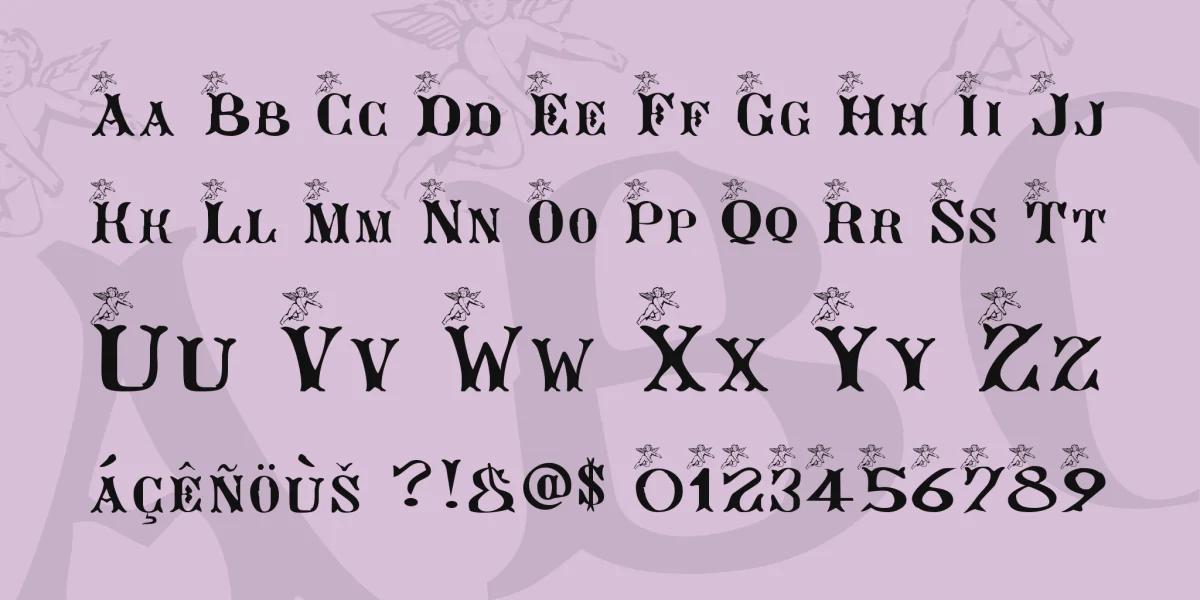
Ange Gardien : a angel font in Charityware to help the victims of terrorism
Since that fatal Tuesday, September 11, I cannot erase from my mind the visions of horror of the Twin Towers and the Pentagon striken by hate-demented terrorists. Nothing couldhave prepared me for such evil horror, not even living in Paris when bombs exploded in department stores and the Metro.
As a modest shareware author, I cannot do much in financial terms. But as I had already created a pack of Angel fonts, I thought about creating this one, a full fledged font, with uppercase bearing a Guardian Angel. It also contains the talisman (mark) of Archangel Gabriel, saint Patron of firemen.
I hope and pray that this little contribution will help people who can donate more to charities than I can. I also mourn and pray for all the victims of intolerance, hate and terrorism.
This font is also a gift to all who have been touched, in one way or another, by these terrible events. The healing process takes time, one day at a time.